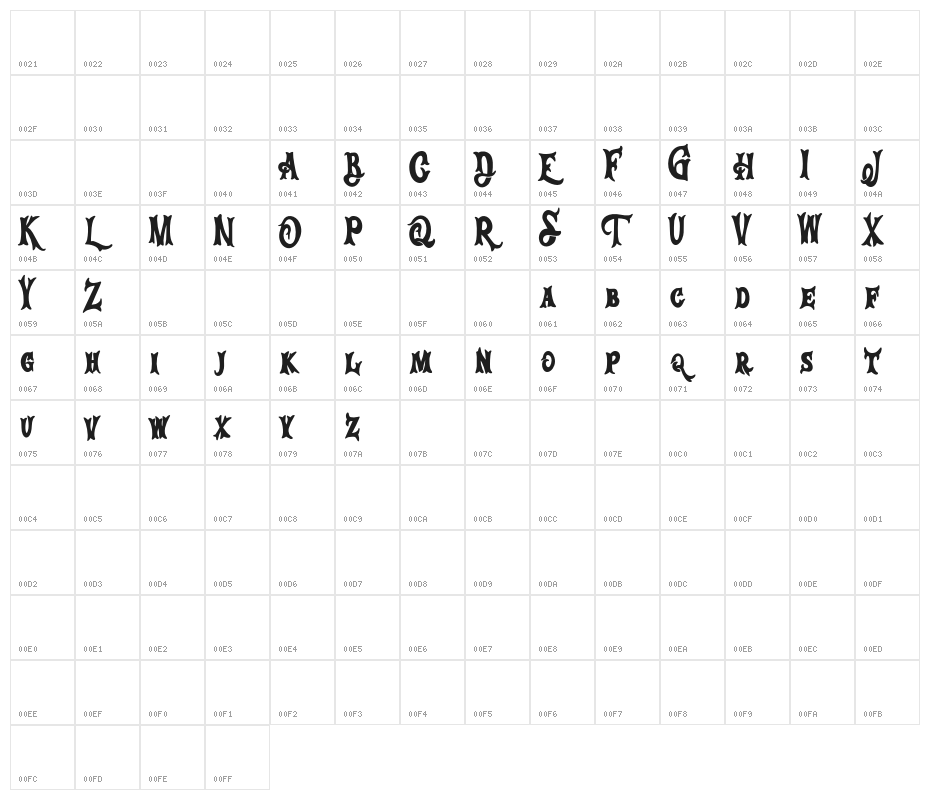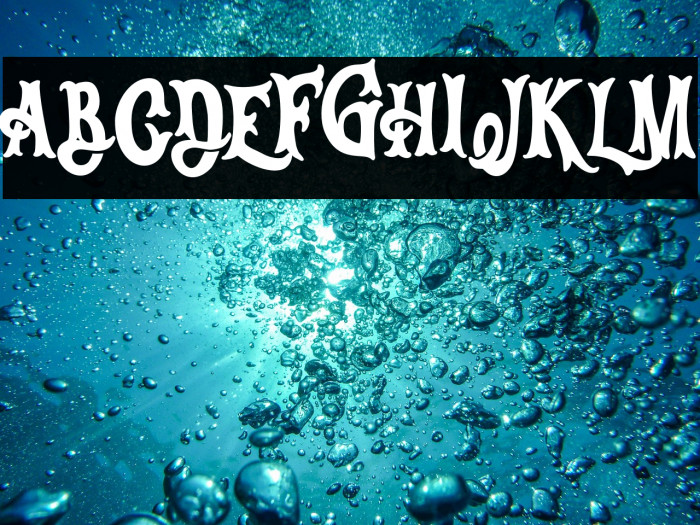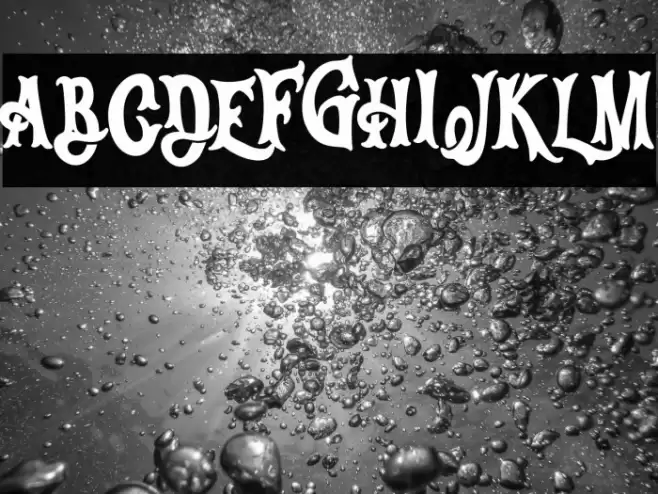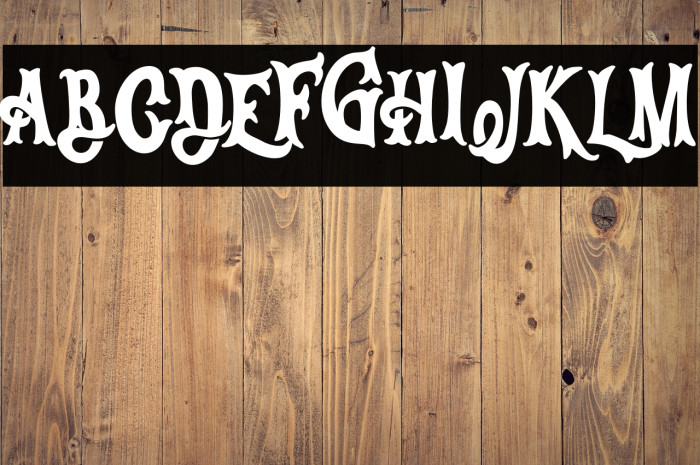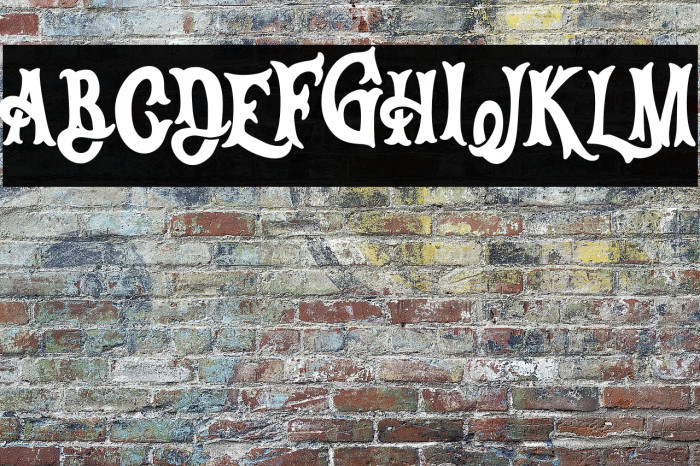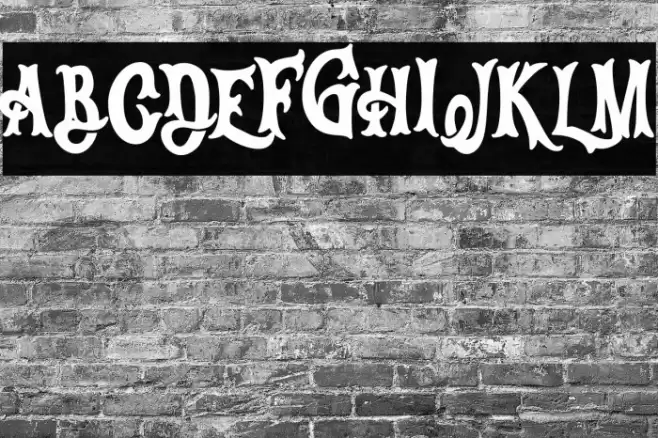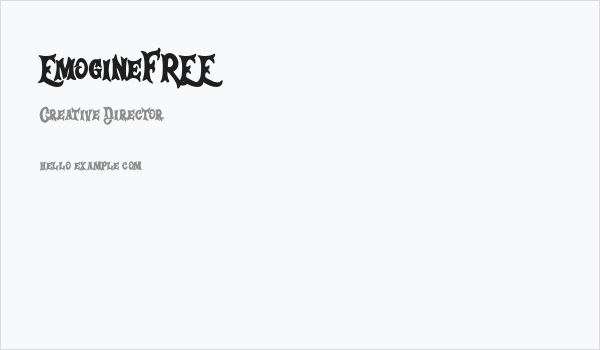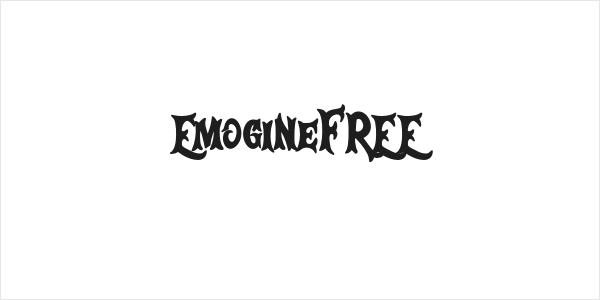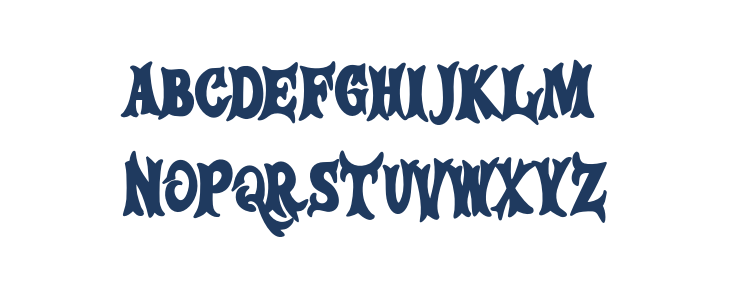
EmogineFREE Font
EmogineFREE Description
This font features a bold and decorative style with a strong presence. The characters are highly stylized, incorporating intricate curves and flourishes that give it a unique and artistic appearance. The uppercase letters are particularly ornate, with exaggerated serifs and sweeping lines that create a sense of movement and drama. The lowercase letters maintain this decorative flair, ensuring consistency throughout the typeface. The font's bold weight and high contrast between thick and thin strokes make it stand out, ideal for attention-grabbing designs.
| Proposed Projects | Ideal for posters, logos, album covers, and any project requiring a dramatic and artistic touch. |